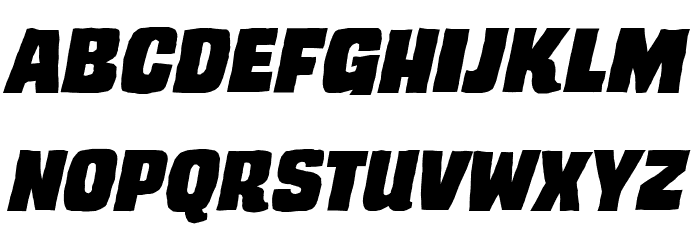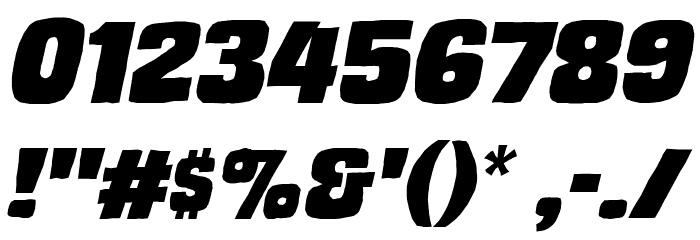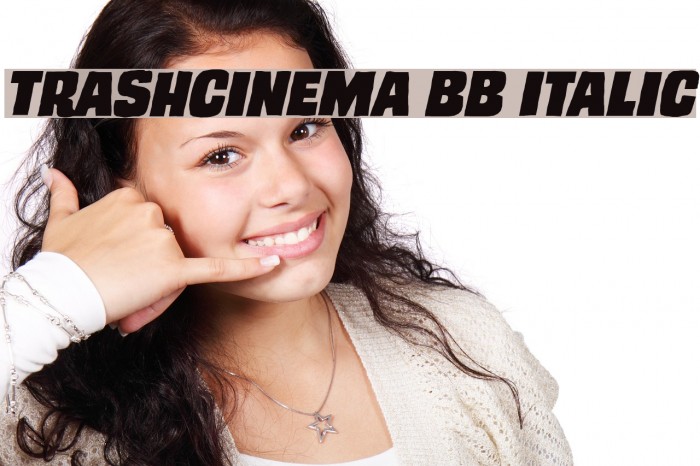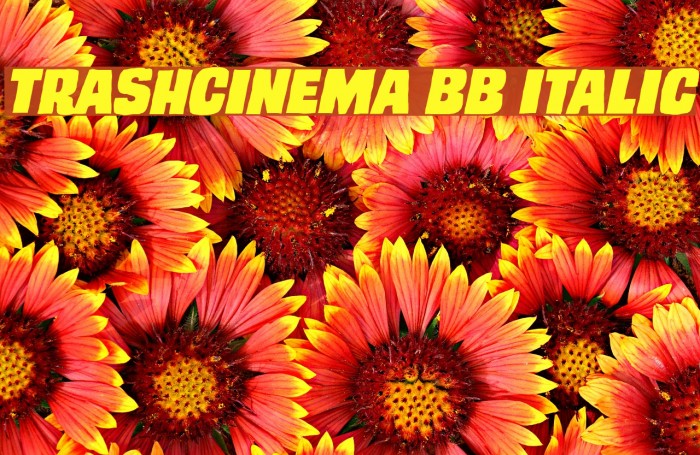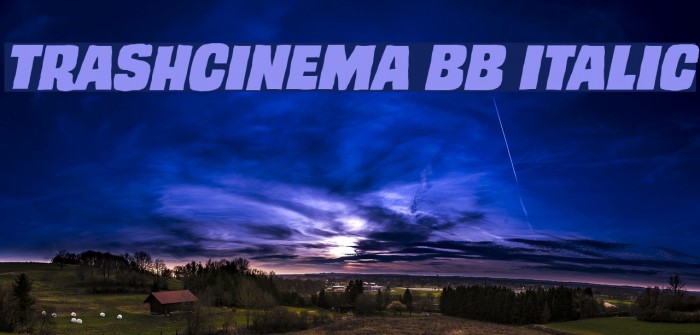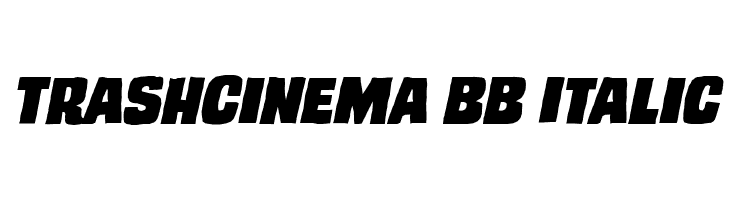
TrashCinema BB Italic Font
This bold, italic font features a strong, dynamic presence with its thick strokes and slightly condensed letterforms. The characters exhibit a slanted orientation, enhancing the sense of movement and energy. The uppercase and lowercase letters maintain a consistent style, with rounded edges and a slightly aggressive flair. The numbers and special characters are equally bold and impactful, making them stand out in any design. This font is ideal for projects that require a bold statement, such as movie posters, album covers, or branding materials. Its unique style captures attention and conveys a sense of urgency and excitement.
A bold, italic font with dynamic, thick strokes and a slightly condensed style.
- Proposed Projects: Ideal for movie posters, album covers, branding materials, and any design needing a bold statement.